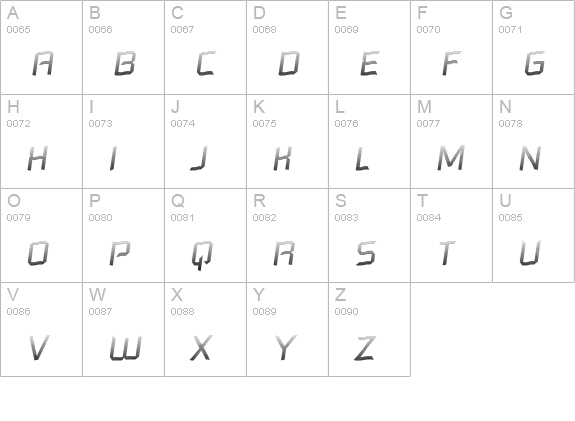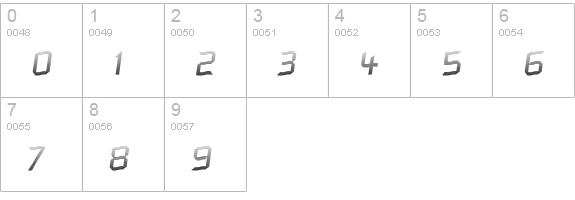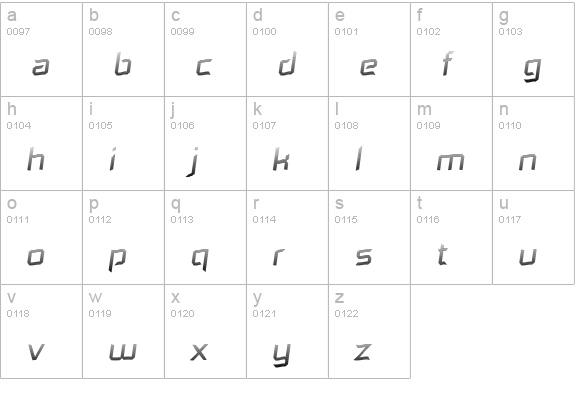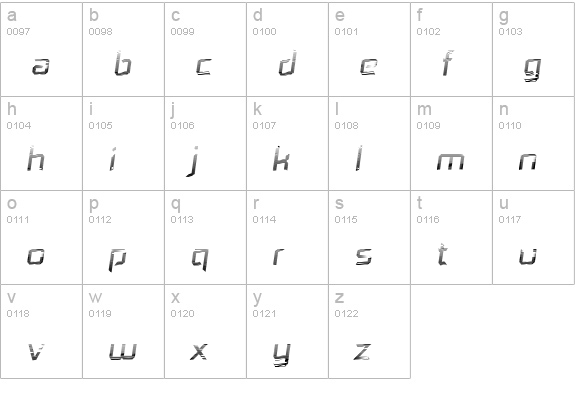
Dennis Hill Speeding Font Details
The Dennis Hill Speeding font is a dynamic and energetic typeface that exudes speed and movement. With its bold strokes and sharp angles, this font is perfect for projects that require a sense of urgency and action. The sleek and modern design of Dennis Hill Speeding font will make your text stand out and grab attention. Best of all, the Dennis Hill Speeding font is available for free download at FontsMarket.com. Whether you're designing a poster, flyer, or website, this font will add a touch of excitement and flair to your project. Don't miss out on the opportunity to use this striking font in your next design endeavor. Download Dennis Hill Speeding font today and unleash the power of speed in your creative work!